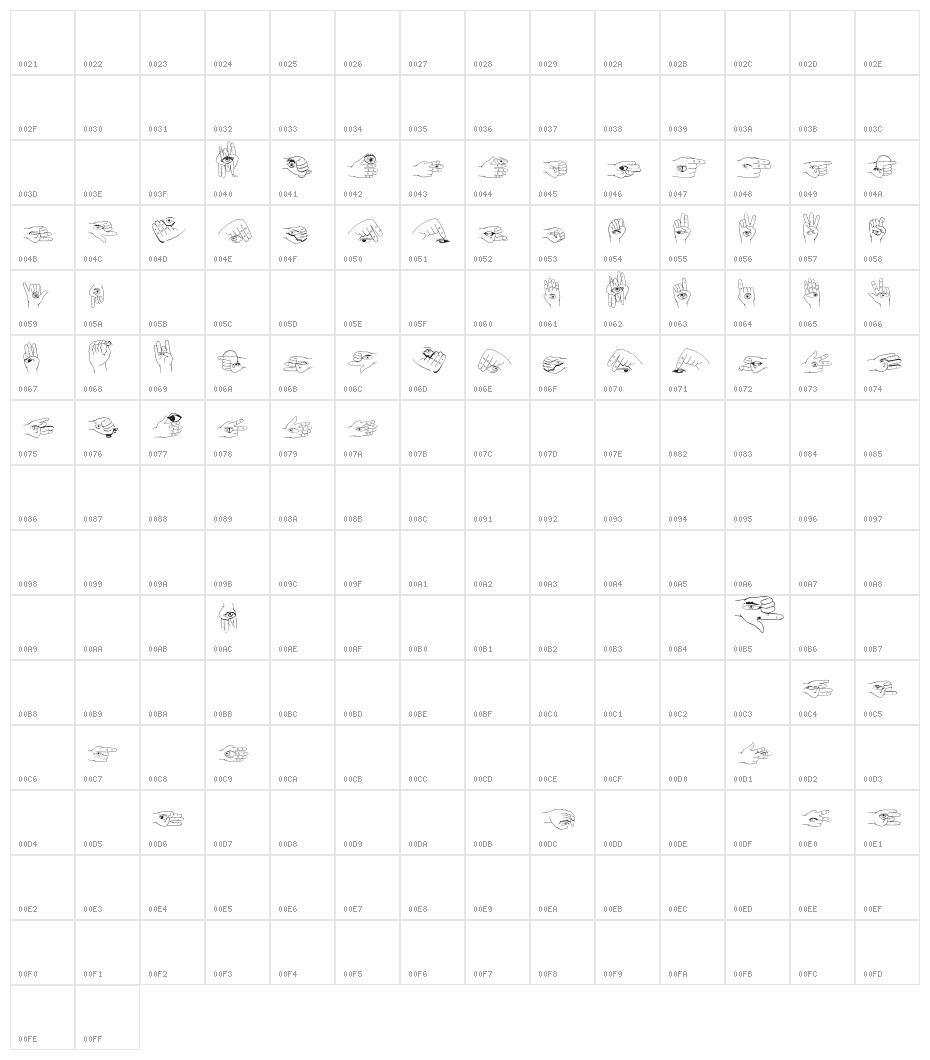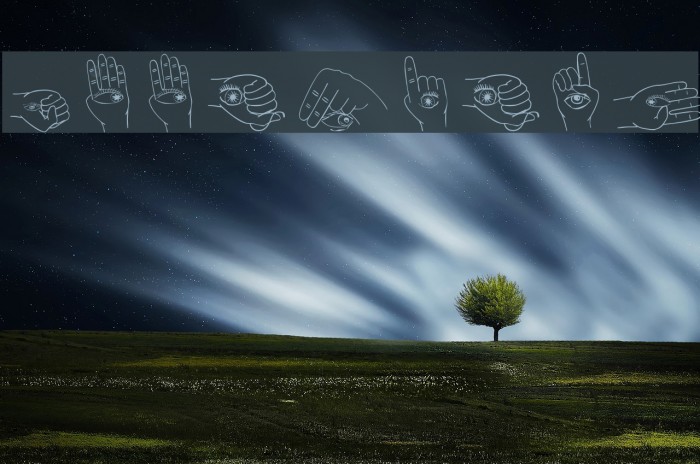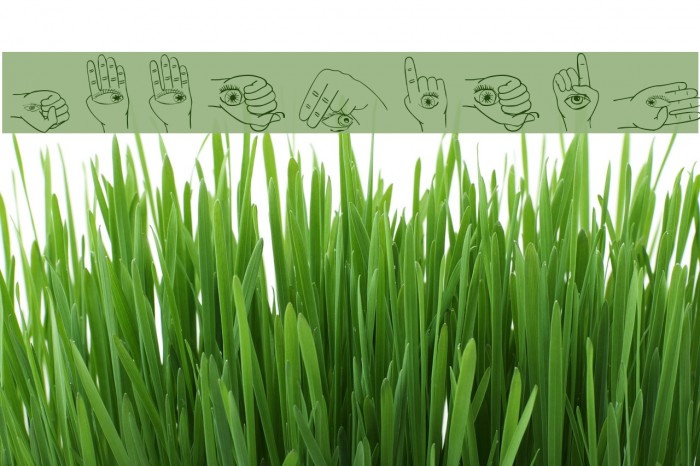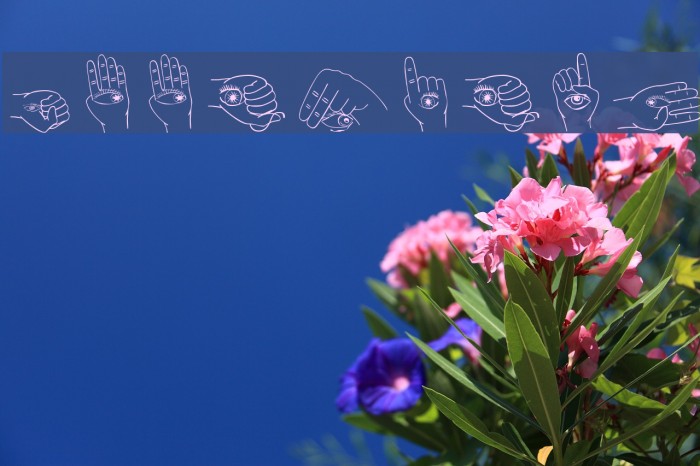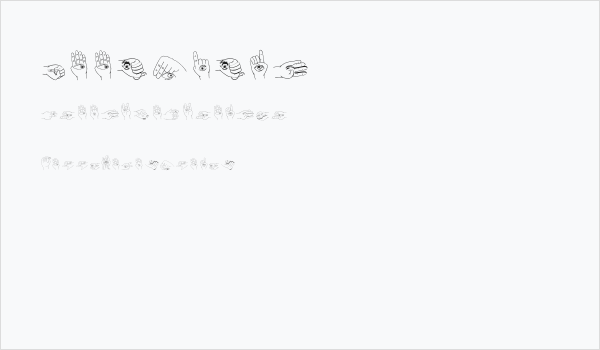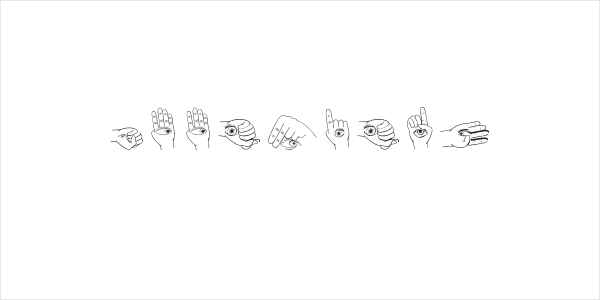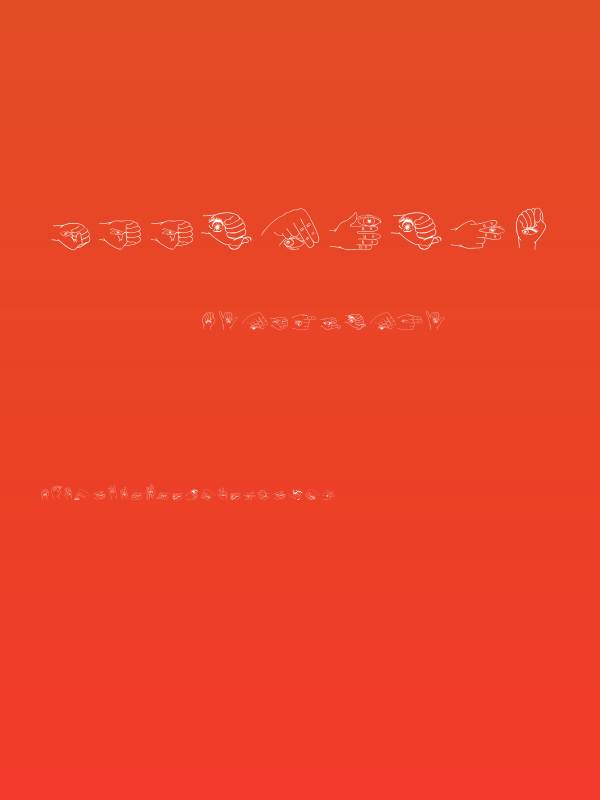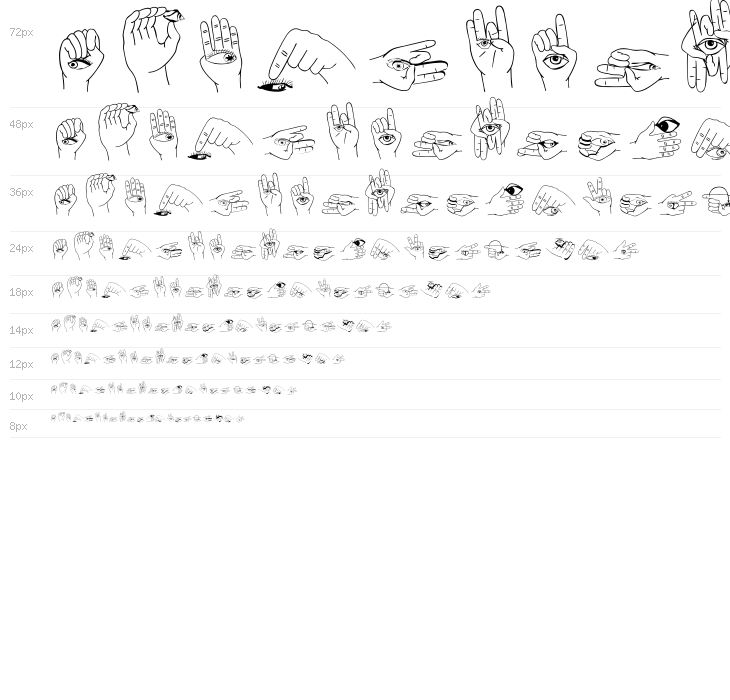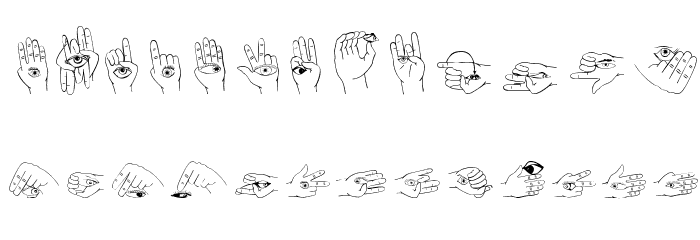
SeeAndAct Font
SeeAndAct Description
This is not a traditional font but rather a creative representation using hand illustrations. Each character is depicted through a unique hand gesture, incorporating an eye motif within the design. The style is highly artistic and unconventional, making it more suitable for decorative purposes rather than standard text applications. The intricate details and imaginative approach make it stand out as a piece of visual art rather than a functional typeface.
| Use Case | Artistic designs, creative branding, visual art projects. |
| Proposed Projects | Ideal for artistic projects, graphic design elements, or creative branding that requires a unique visual impact. |